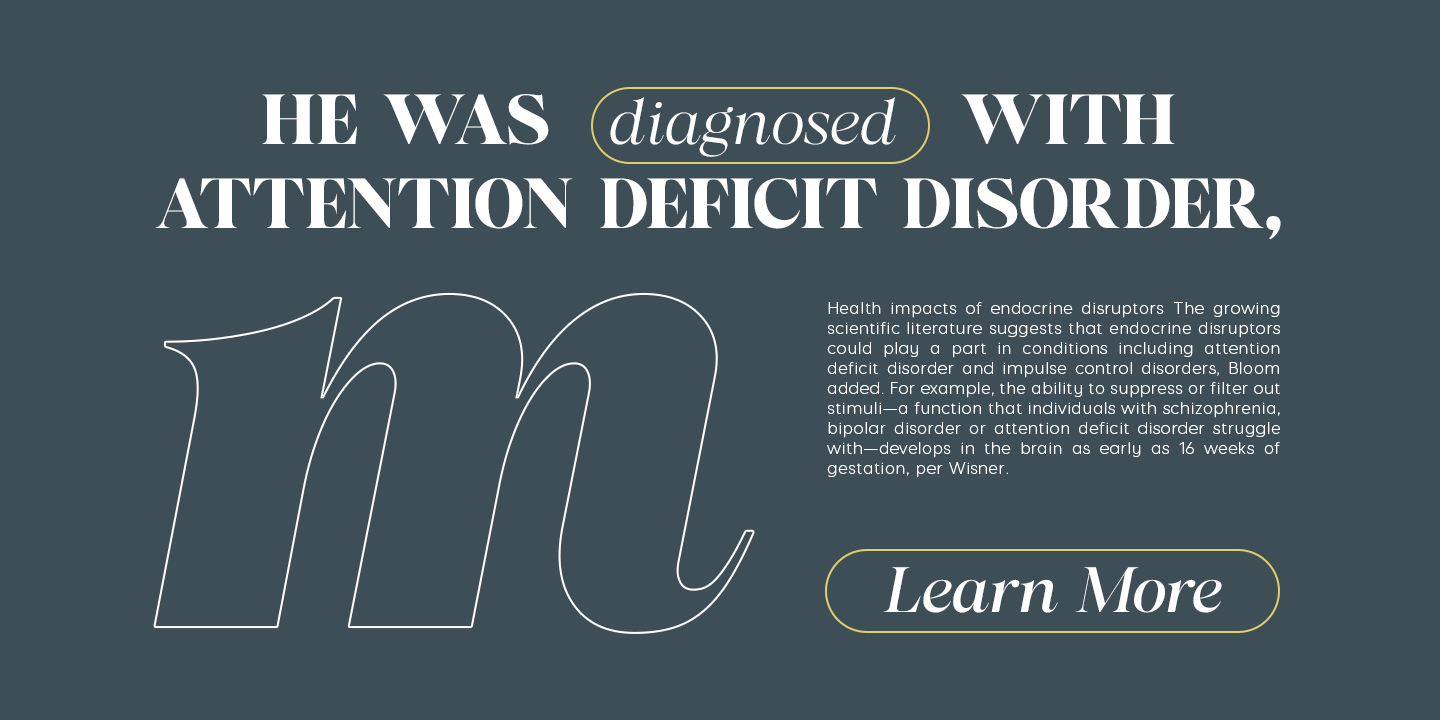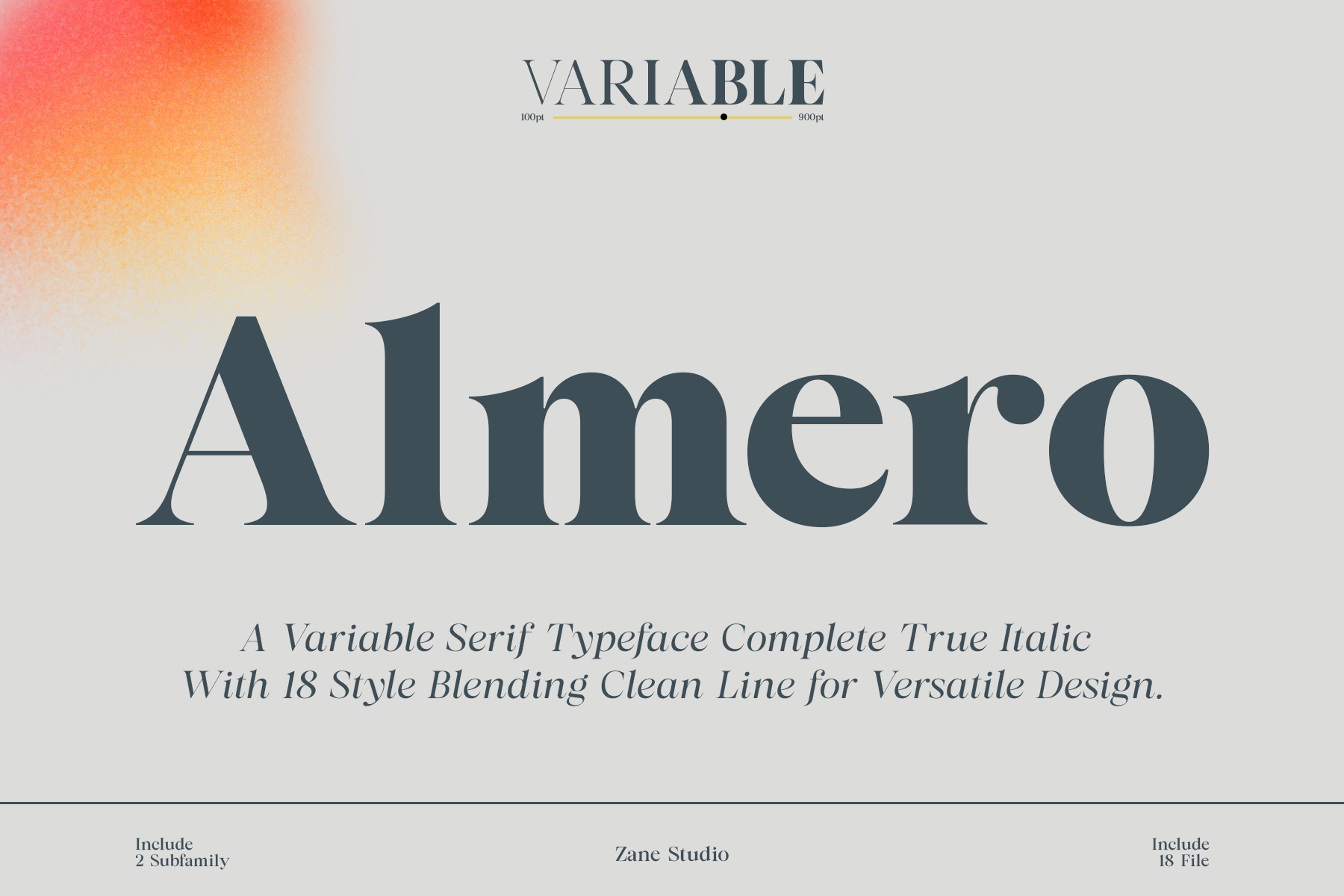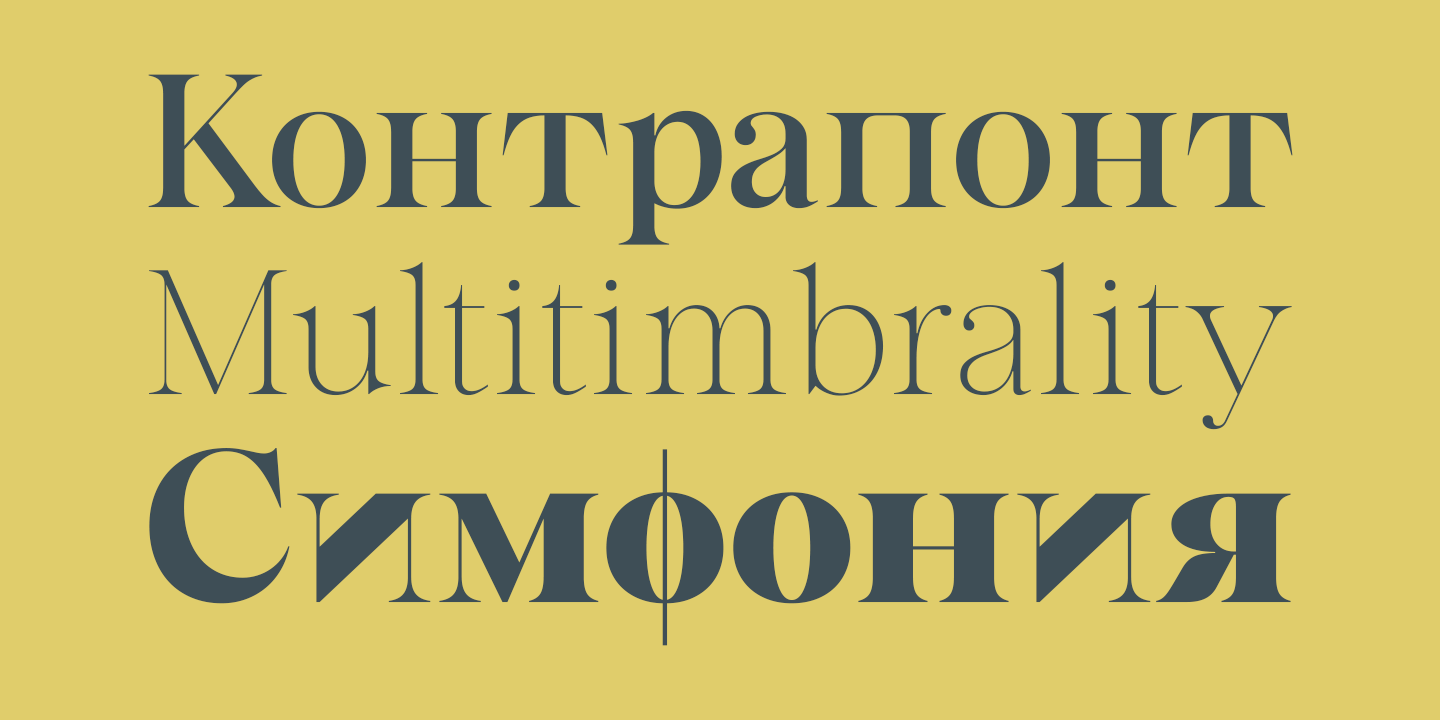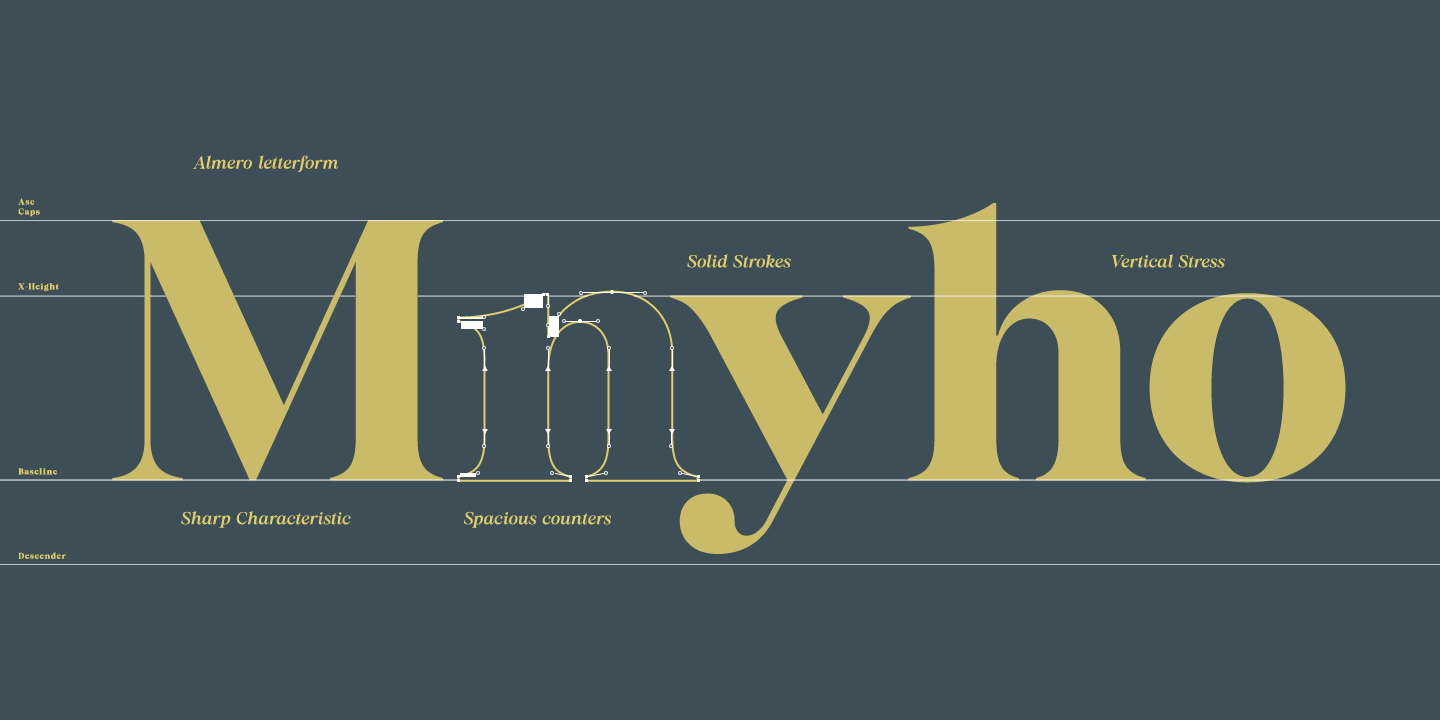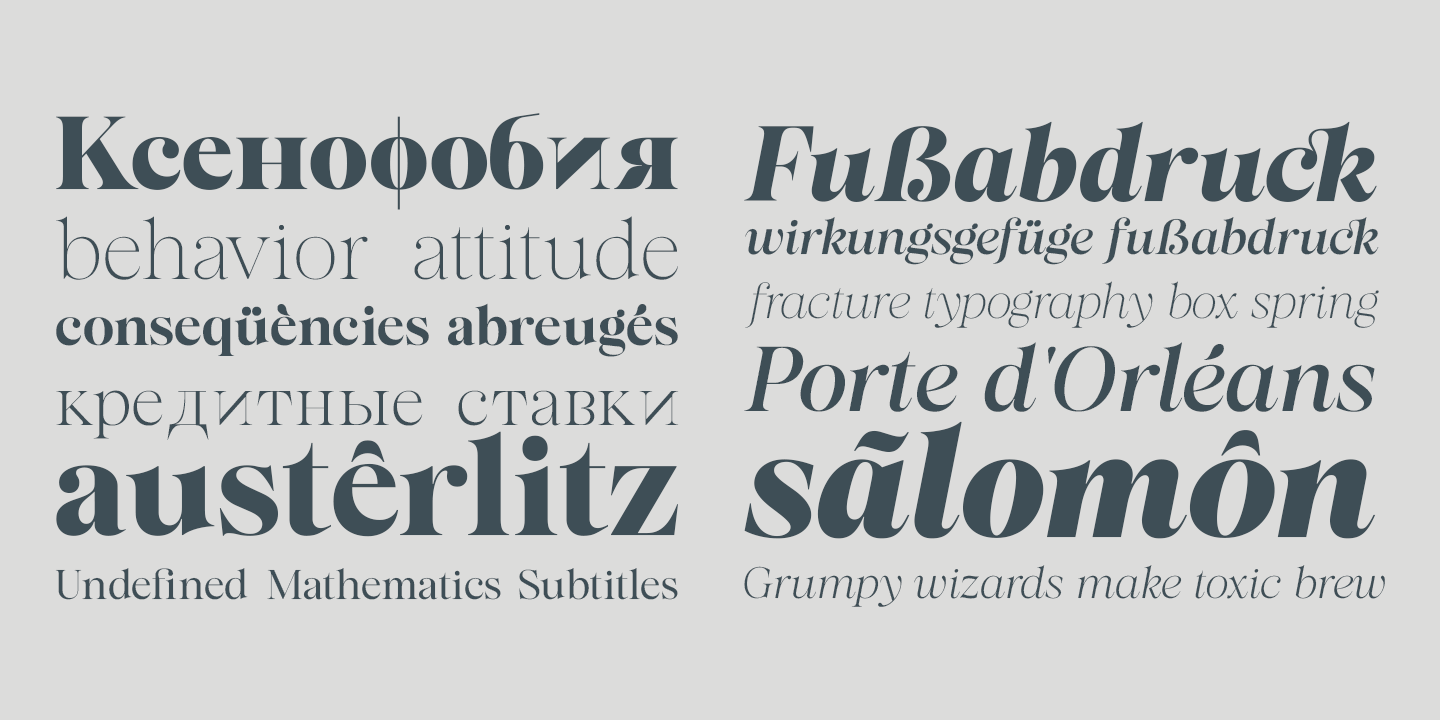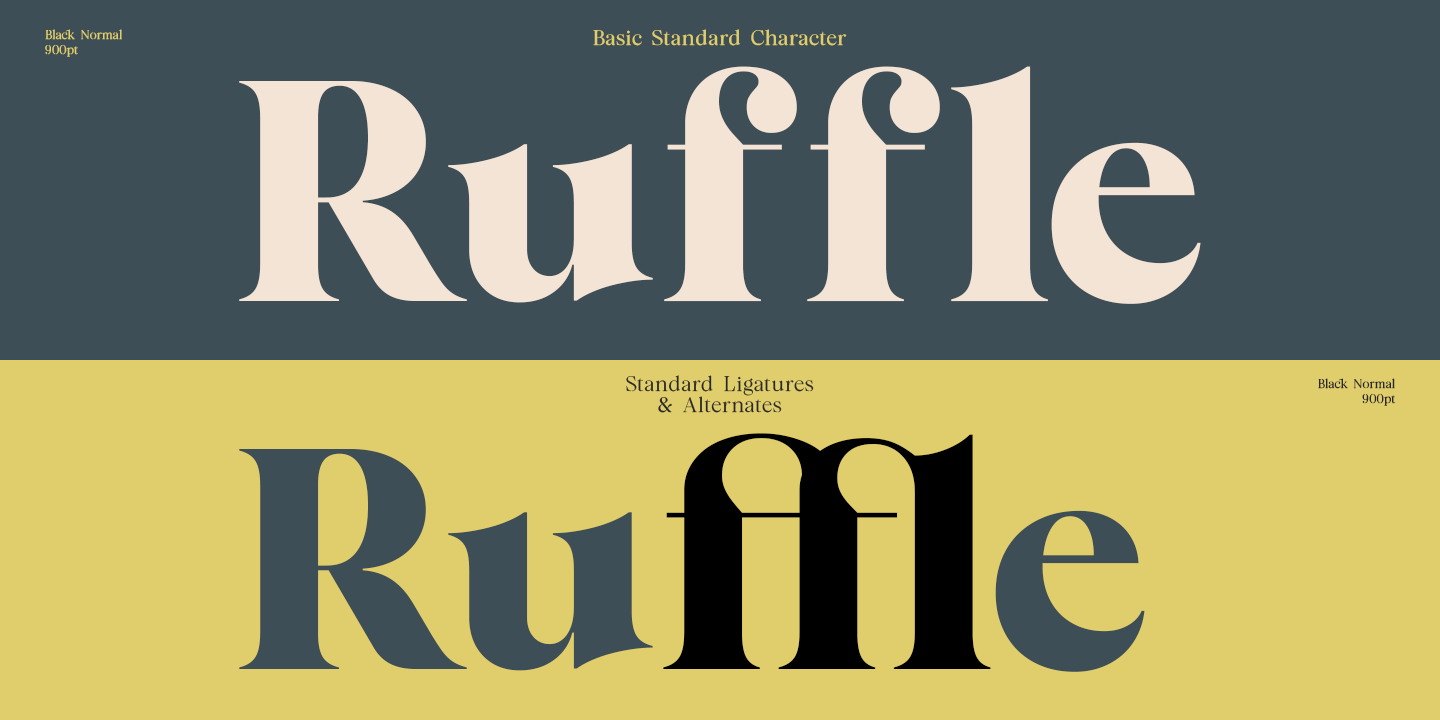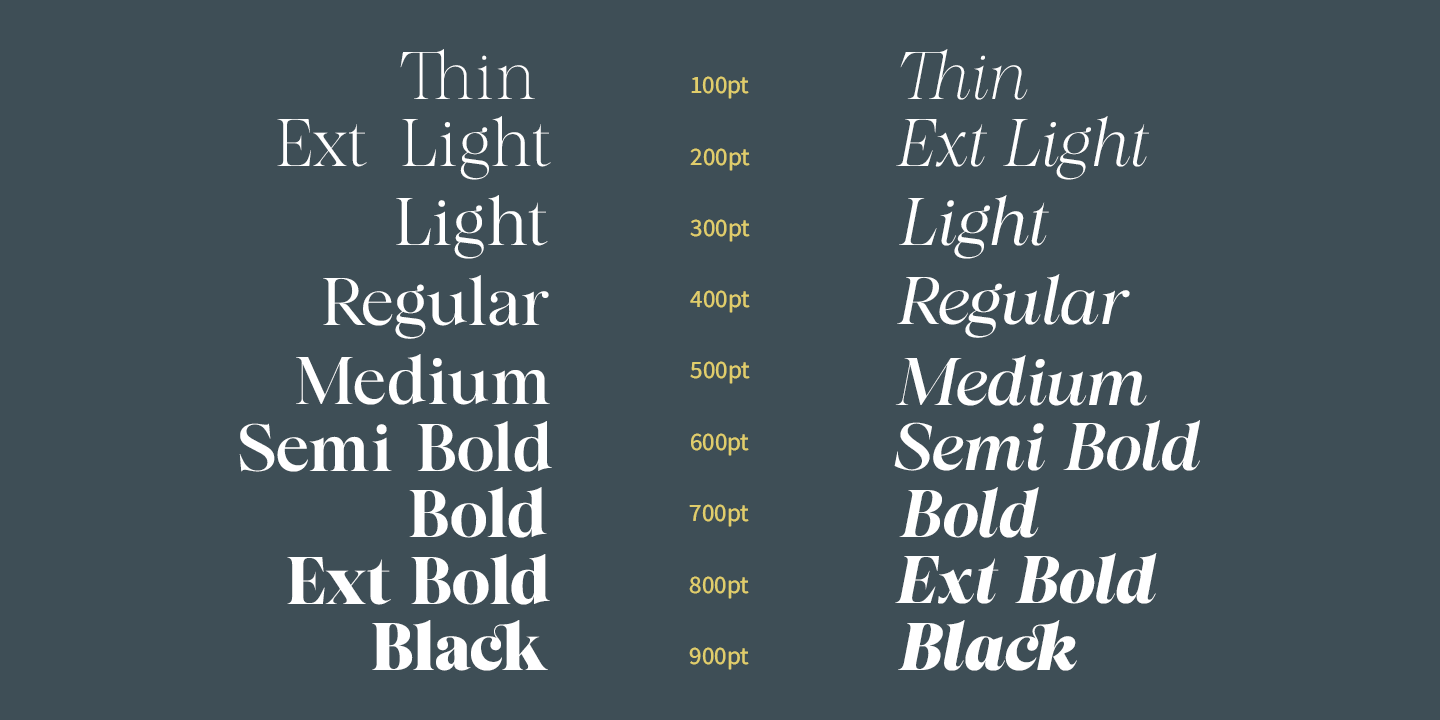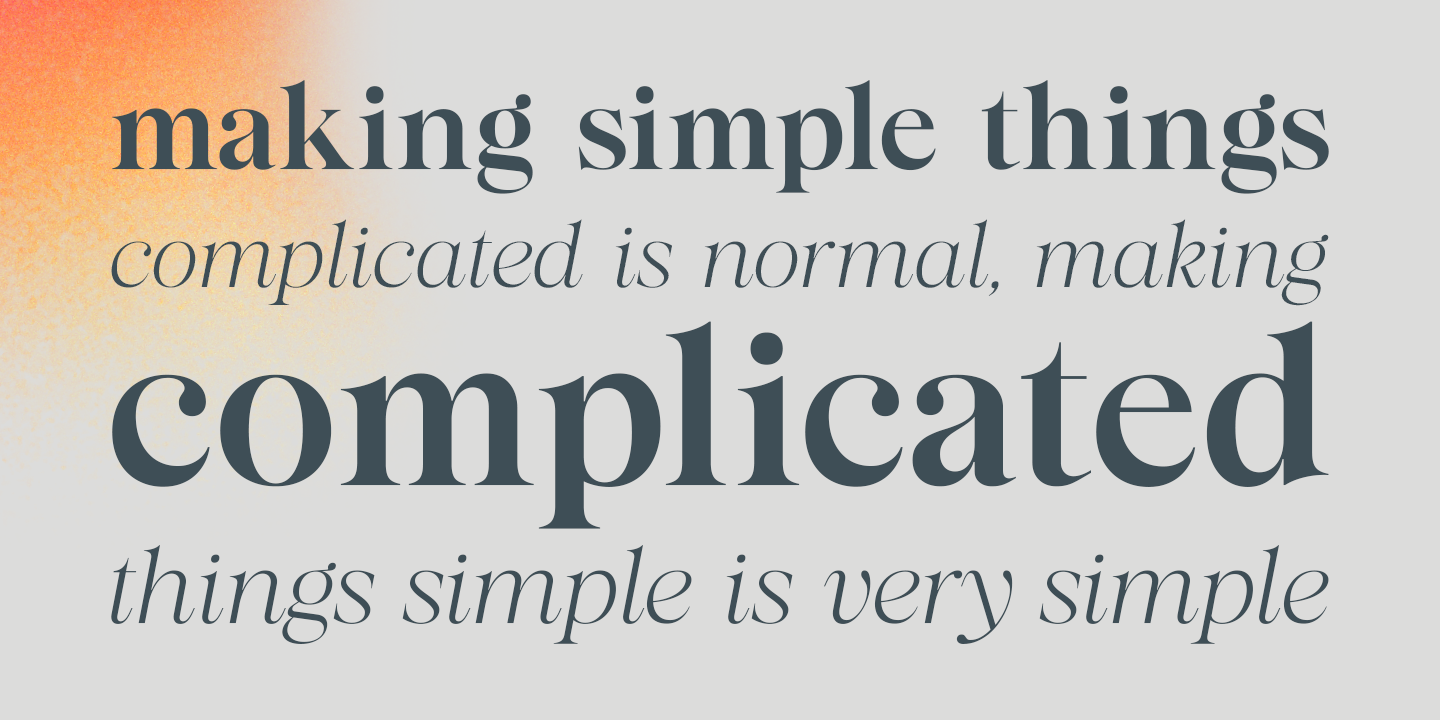
Almero from Zane Studio is a high contrast typeface inspired by transitional and contemporary typefaces. This font expands its usability by providing weights ranging from light to black. Natural curves, bumps, and italic stems grow in character as the font thickness increases. While thinner thicknesses have reduced contrast and optical correction to create a warm and soft look. Featuring a charming italic weight, an extraordinary bold weight, and full character support of over 810 Glpyh and Latin-based language support.
Almero excels in display settings such as editorial design, headlines, branding projects, logo design, packaging, magazine headlines, advertisements, short or long texts.
Almero also comes in two Variable font versions: Regular, Italic, to make it easy for designers to explore and refine beautiful designs, revealing many visual nuances and hidden secrets.